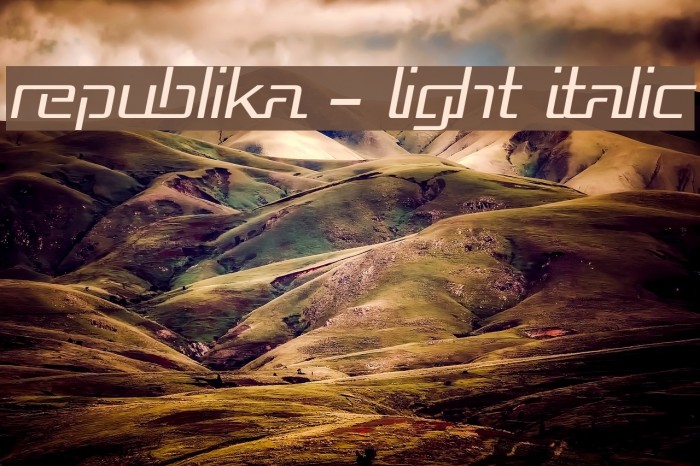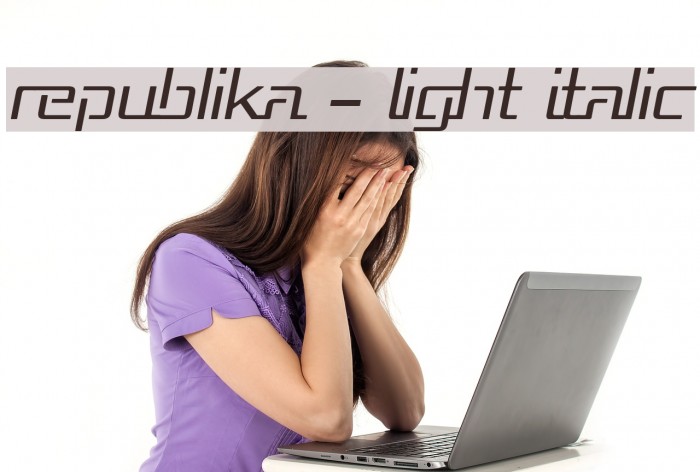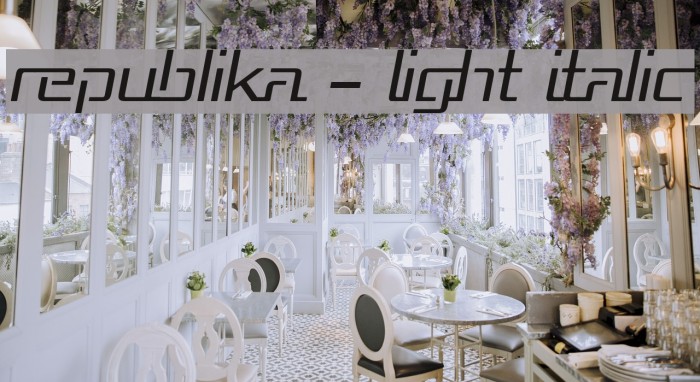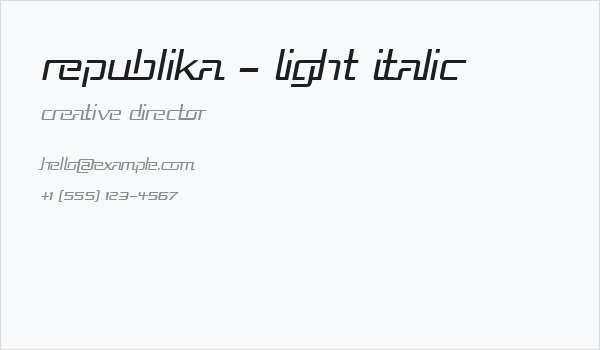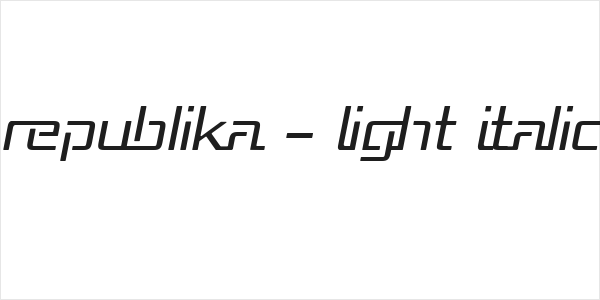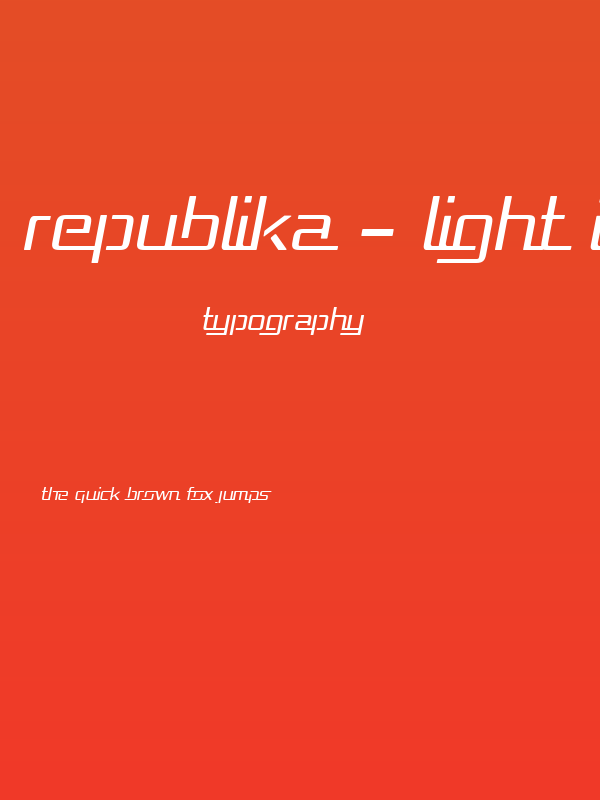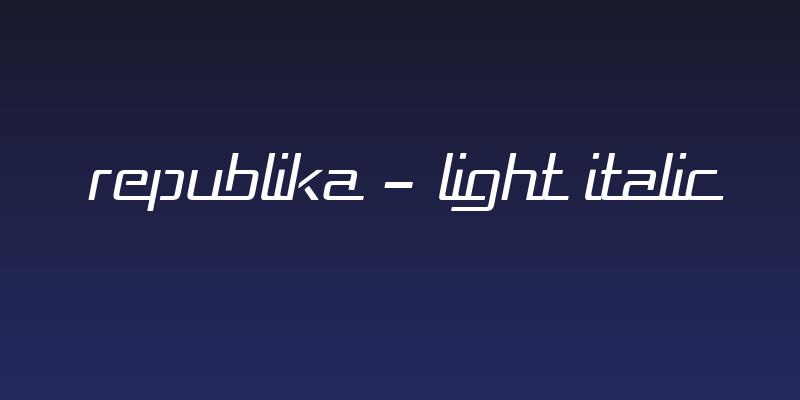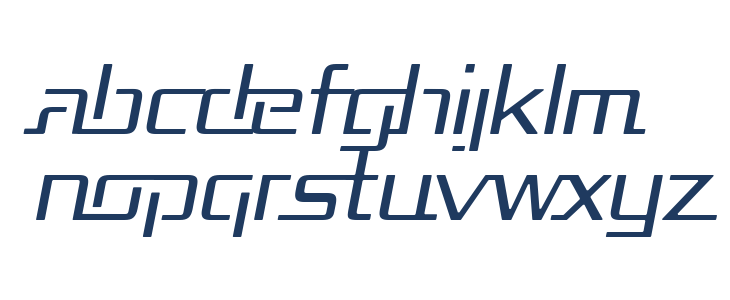
Republika - Light Italic Font
Republika - Light Italic Description
This font features a sleek, modern design with a distinct italic slant, giving it a dynamic and forward-moving appearance. The characters are crafted with precision, showcasing a geometric structure that is both clean and sophisticated. The strokes are consistent in weight, contributing to a uniform look across all characters. The font's style is slightly condensed, which enhances its contemporary feel while maintaining readability. The spacing between characters is balanced, ensuring clarity and legibility. This font is well-suited for projects that require a modern and professional aesthetic.
Use CaseHeadlines, Logos, Digital interfaces
Proposed ProjectsIdeal for branding, advertising, digital interfaces, and editorial design.